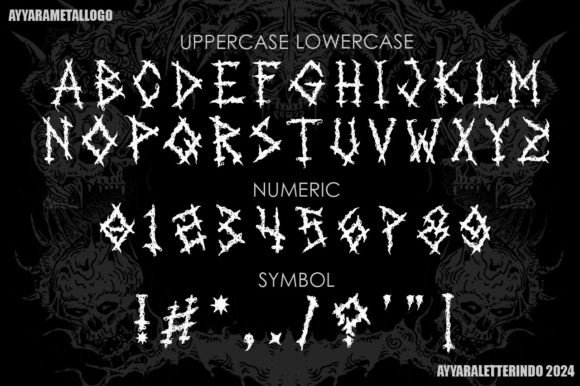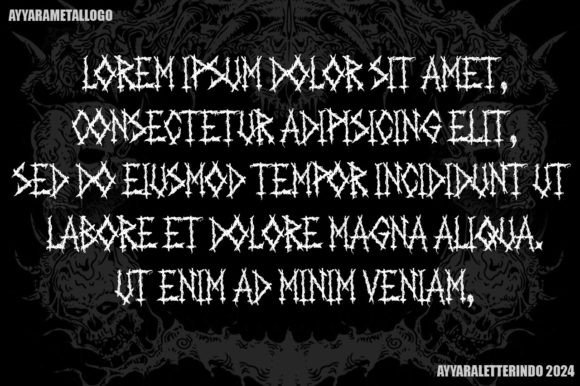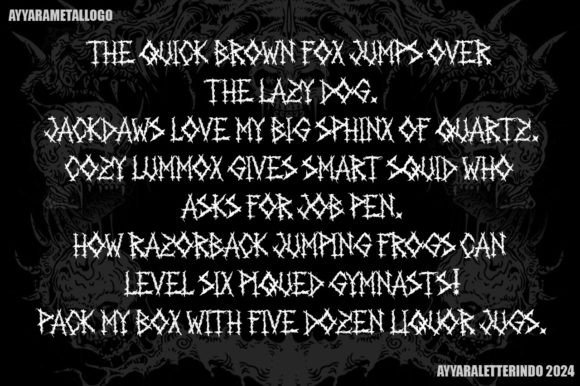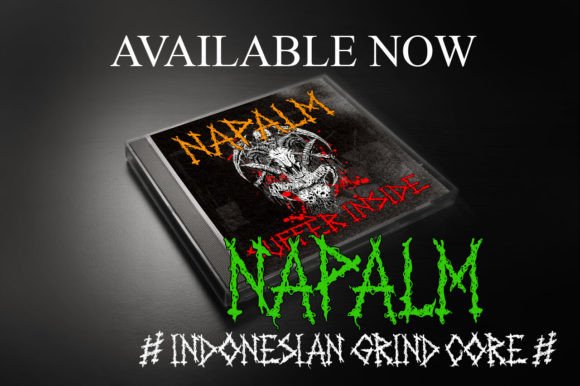
Introduction to Napalm Font
Have you ever stumbled upon a font that sparks your creativity and makes you want to create something epic? For metalheads and designers alike, finding the perfect font can be a game-changer. It was during one such moment of creative fervor that I discovered the Napalm Font, a grind core metal font that has been making waves in the design community.
As a designer, I can attest to the value of having a high-quality font at your disposal. The Napalm Font is more than just a design resource – it’s a key to unlocking your creative potential. With its unique black letter design, this font is perfect for creating logos, branding, and even metal band names that scream raw energy and rebellion.
Napalm Font
- Features a unique, bold design that makes it perfect for headings and titles in various creative projects.
Honest Review: Napalm Font
I recently stumbled upon the Napalm Font, a design resource that caught my attention with its high-quality typography. The font is perfect for creative projects that require a bold and edgy look.
- Not suitable for body text: The font is better suited for headings and titles, rather than body text.
Overall, I’m impressed with the Napalm Font, and I would recommend it for designers who need a bold and eye-catching typography for their creative projects. Just keep in mind its limitations, and use it accordingly.
Napalm Font
Napalm Font is suitable for a wide range of creative projects, including:
- Graphic design and branding materials.
- Web design and development projects.
- Print design and advertising materials.
- Digital art and illustration projects.